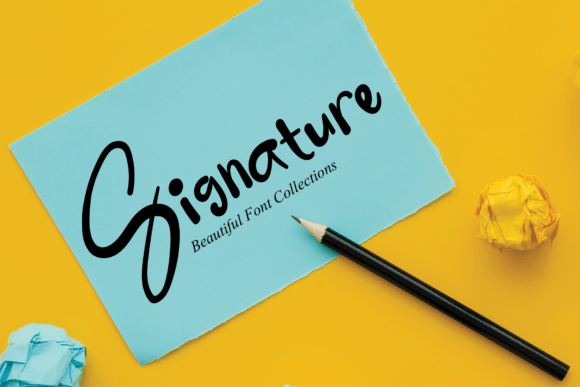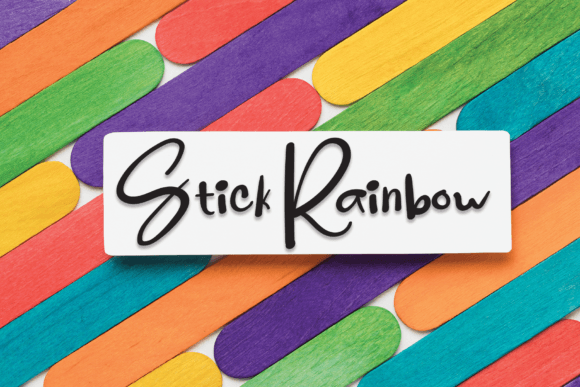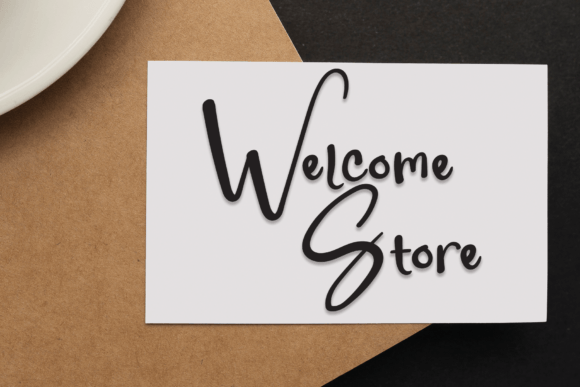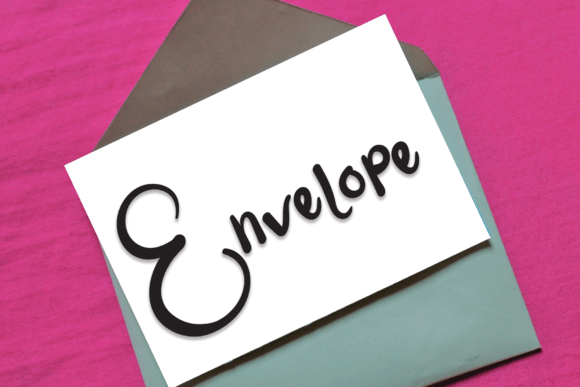
Smile Signature Font
About Smile Signature Font
Smile Signature Font is a charming and friendly handwritten typeface with a simple yet appealing design. Crafted with a smooth pen flow, this font brings a personal touch to any project, making it ideal for creatives who love a handcrafted look.
Its soft curves and balanced letterforms offer clarity without sacrificing character. Whether you’re designing invitations, branding materials, or heartfelt quotes, Smile SignatureFont adds just the right dose of personality.
Where to Use Smile Signature Font
Use Smile SignatureFont to enhance a wide variety of creative projects:
• ✉️ Invitations & Greeting Cards – Create personal, warm, and inviting layouts for weddings, birthdays, or holidays
• 🎨 Craft & DIY Projects – A perfect match for Cricut or Silhouette users
• 📱 Social Media Graphics – Add a friendly vibe to Instagram posts, Facebook covers, and Pinterest pins
• 🛍️ Product Packaging & Labels – Ideal for boutique brands, skincare lines, and handmade products
• 🖥 Digital Designs & Presentations – Works beautifully in presentations and printable art
• ✅ Handwritten Style – Natural strokes that reflect authentic handwriting
• 🎯 Crisp & Clear – Clean legibility even at smaller sizes
Whether you’re creating heartfelt greeting cards or stylish digital designs, Smile SignatureFont offers a clean, handwritten aesthetic that blends professionalism with warmth.